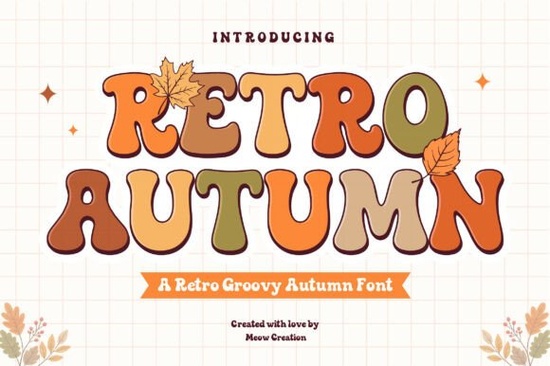
If you're looking for a font that brings warmth and nostalgia to your fall projects, Retro Autumn Font delivers exactly that. It’s a bold, playful display typeface with a distinct 70s vibe perfect for adding cozy seasonal charm to anything from t-shirt designs to holiday invitations. The rounded, groovy shapes and earthy tones make it feel like a vintage autumn leaf caught in a design.
What makes Retro Autumn Font stand out?
This font isn’t just another seasonal typeface it’s built with personality. Its thick strokes and slightly uneven lines give it a handcrafted, analog feel, as if it were printed on a retro poster or screen-printed on a cotton tote bag. Whether you’re designing for Instagram, print-on-demand, or personal crafts, it adds instant character without overpowering the message.
- Perfect for fall themes: Think pumpkins, leaves, cider, and sweater weather.
- Versatile across formats: Works great on mugs, stickers, posters, and branding materials.
- Easy to pair: Complements simple backgrounds and minimalist layouts.
It’s especially useful when you want to highlight quotes, slogans, or event details with a warm, inviting tone. You can use it for seasonal social media posts, holiday cards, or even small business branding during September through November.
How can I use Retro Autumn Font in my creative work?
Designers and crafters love this font because it’s not limited to one project. Here are some real-world uses:
- Custom t-shirts: Pair it with a plain white or brown base for a standout look.
- Stickers and decals: The bold style ensures readability even at small sizes.
- Invitations and greeting cards: Ideal for harvest parties, fall weddings, or family gatherings.
- Branding elements: Use it for logos, tags, or packaging labels to build a nostalgic brand identity.
- Print-on-demand products: Suits mugs, notebooks, and tote bags where visual impact matters.
You don’t need advanced design skills to make it work. Just choose a clean background like cream, beige, or deep red and let the font shine. For extra texture, try layering it over a subtle paper or fabric pattern.
Where does Retro Autumn fit in my design toolkit?
If you already use fonts like Modern Distress for grungy textures or Cute Holiday for festive cheer, Retro Autumn fills a sweet spot between them: nostalgic but not overly cute, bold but still readable. It’s part of a growing collection of display fonts that bring mood and memory into digital design.
For those who enjoy mixing styles, it pairs well with simpler sans-serif fonts like North Hiking for balance. Or go full retro with Siglon, which shares similar 70s energy. And if you’re making something soft and sweet, consider Bubble Cream for contrast.
Final tip: Keep it legible and intentional
While the font is expressive, avoid using it for long blocks of text. Save it for headlines, titles, or short phrases where impact matters most. Also, test it at different sizes especially on small items like stickers or pins to ensure clarity.